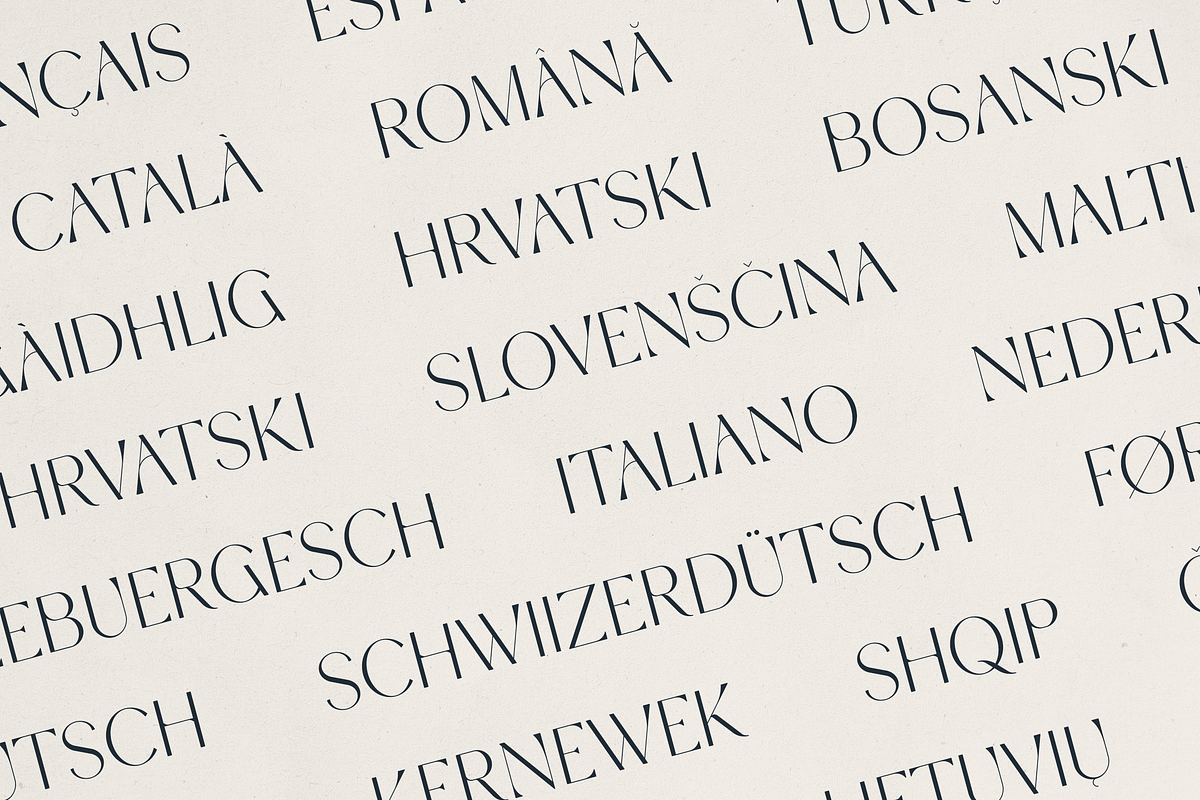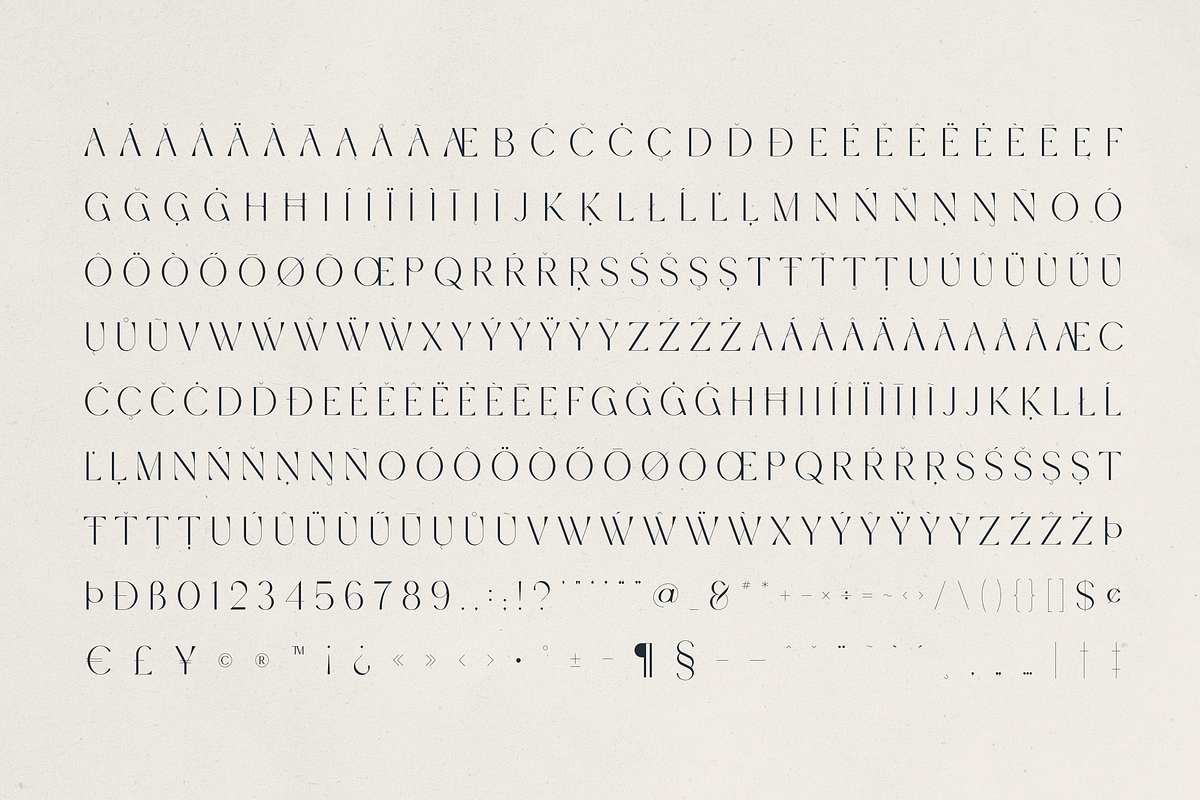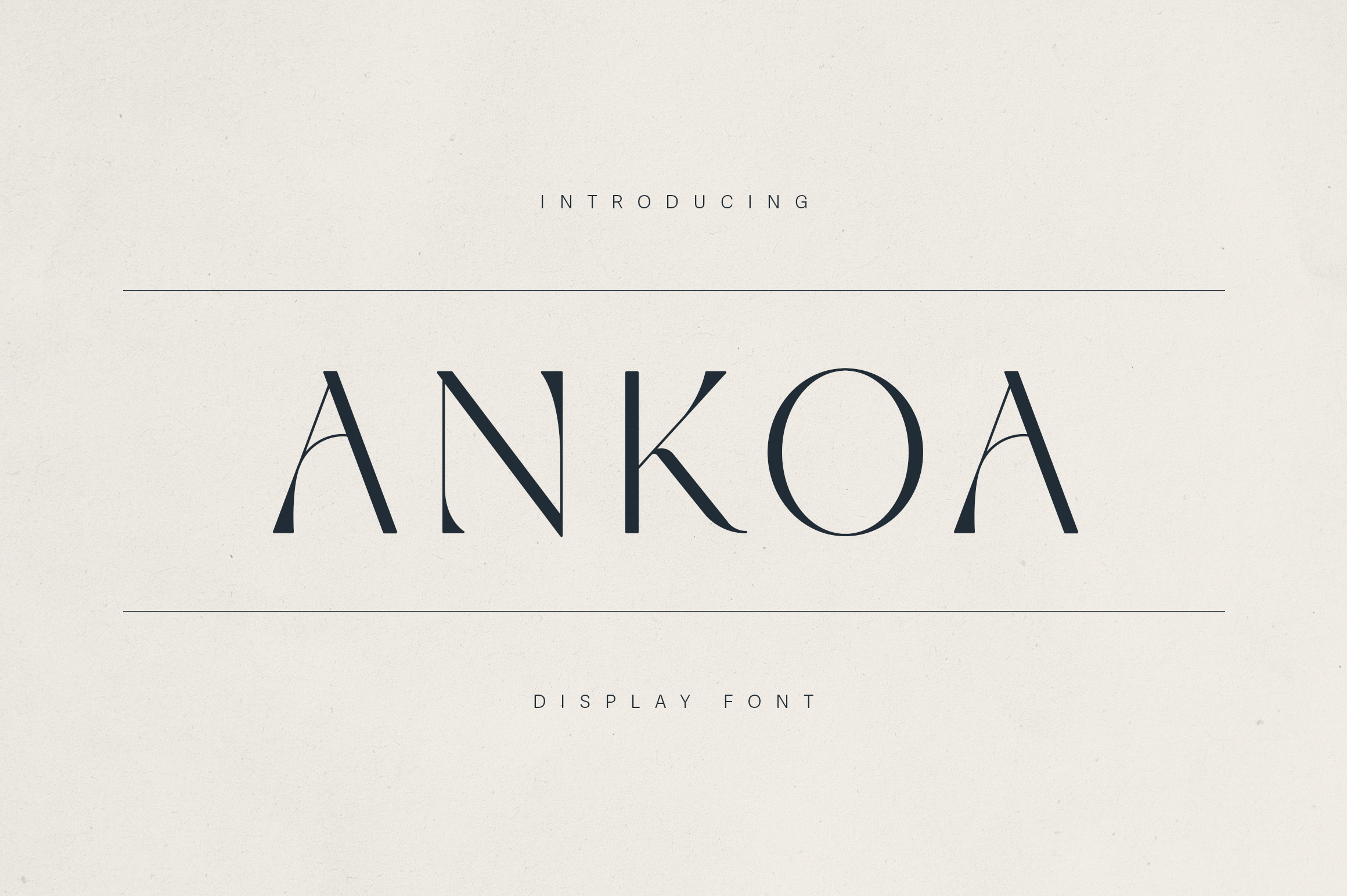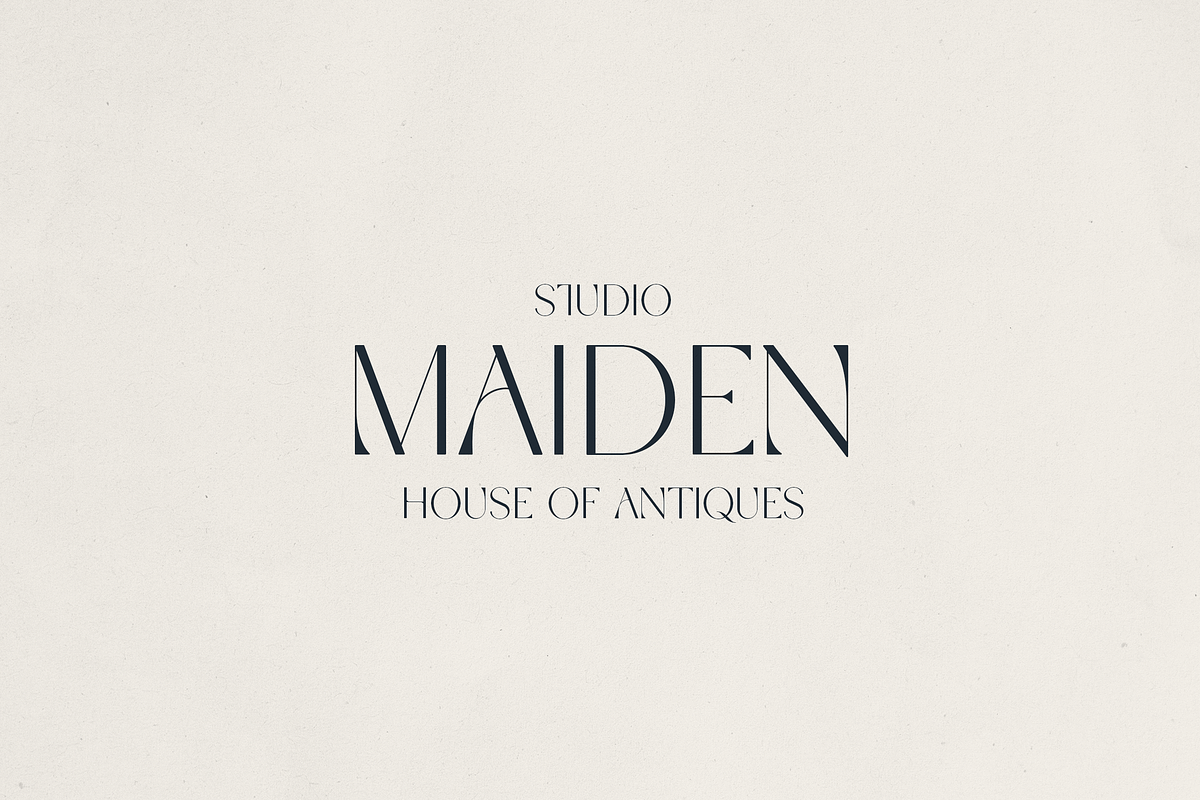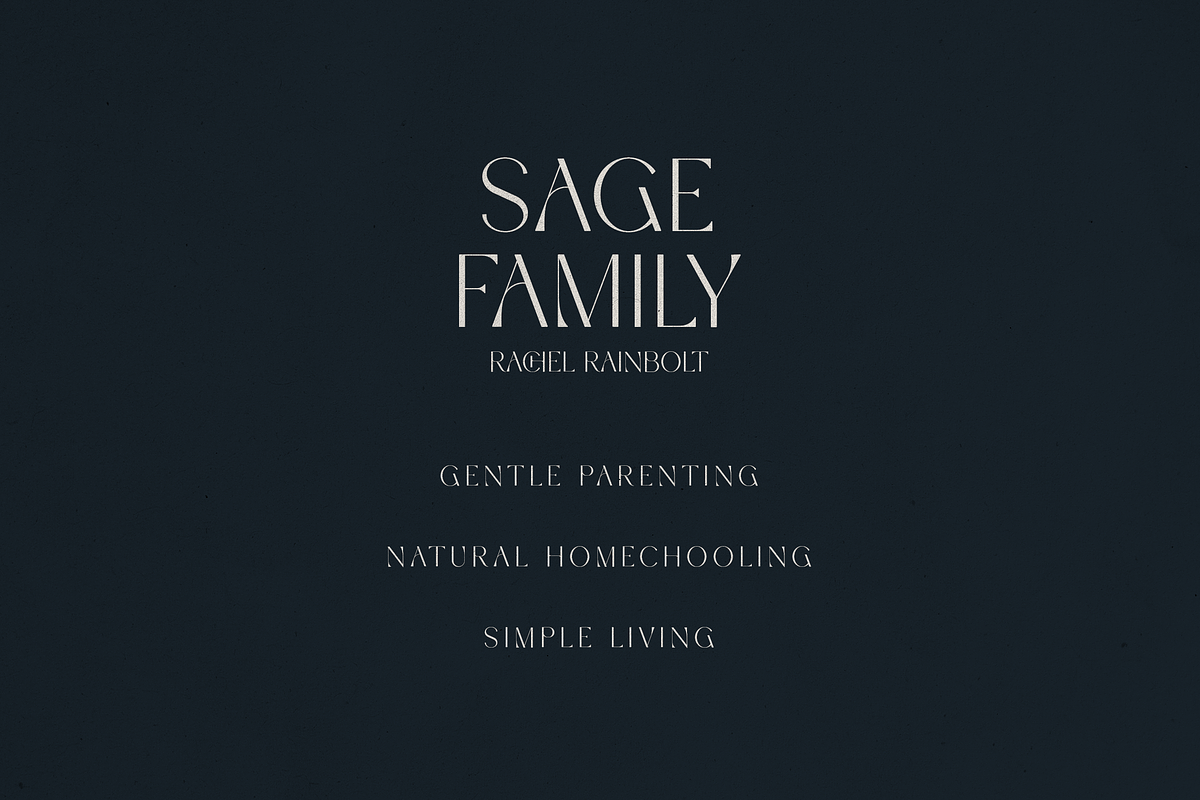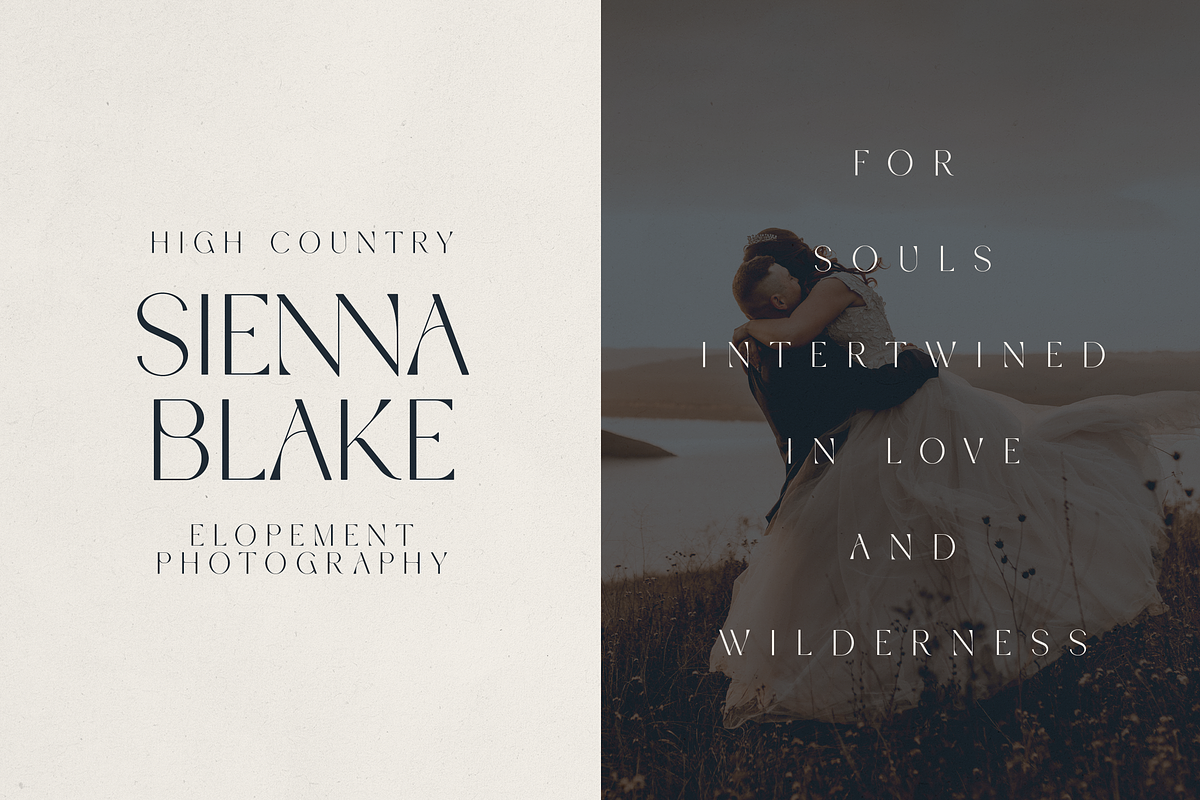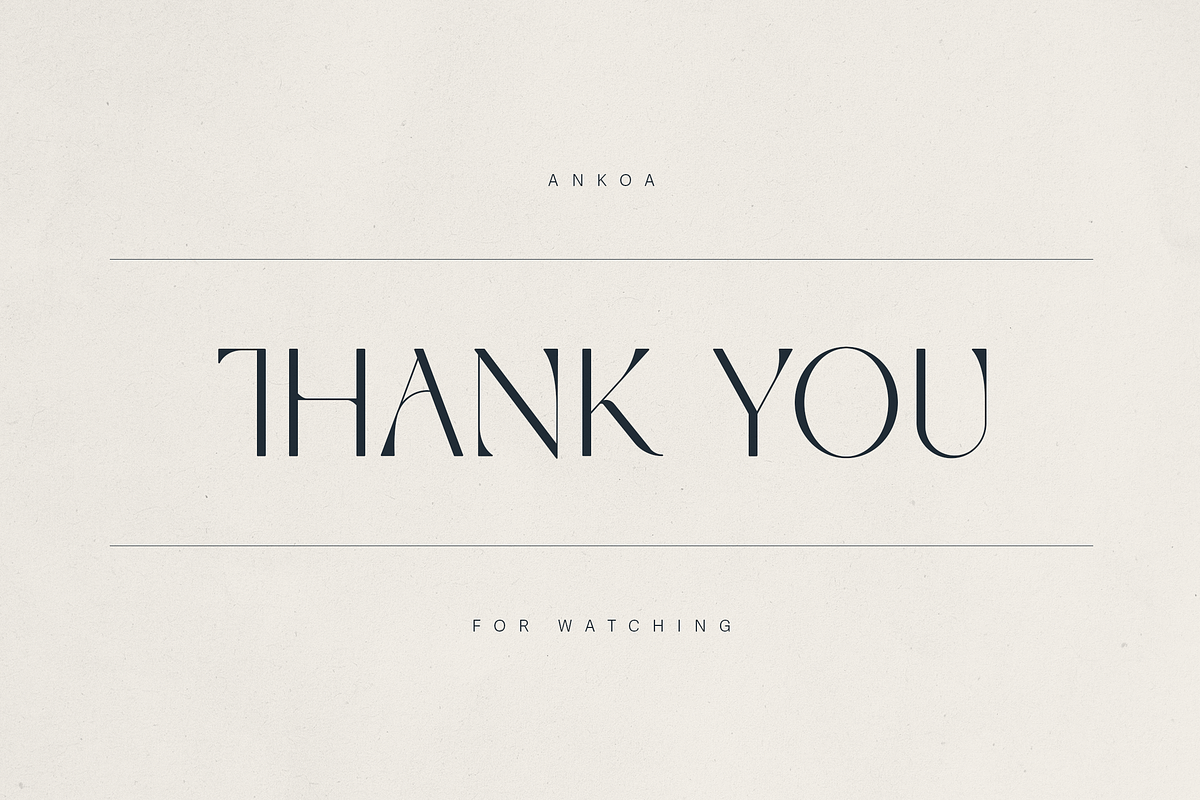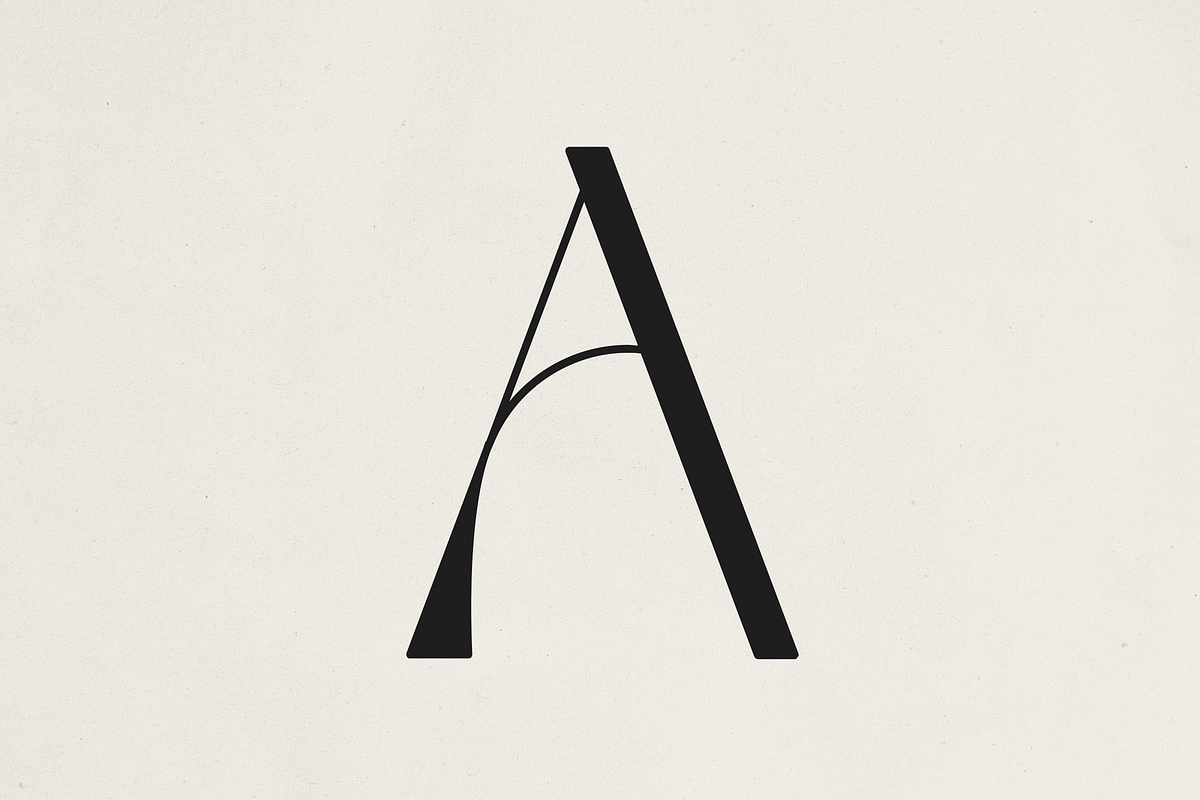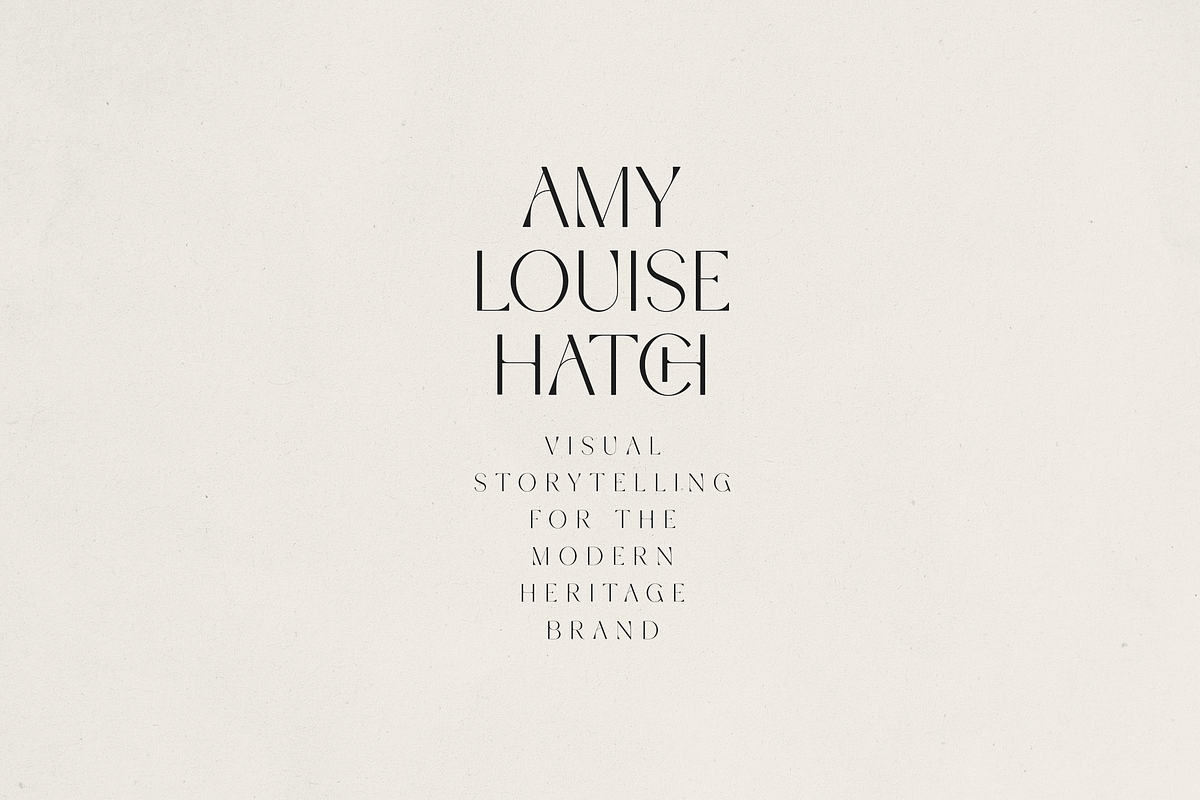
Ankoa – A Refined Display Font
Ankoa – A Refined Minimalist Display Serif
Ankoa is a contemporary display serif font that balances artistic flair with timeless sophistication. Defined by its elegant high-contrast strokes, unique curved terminals, and refined proportions, Ankoa captures the essence of modern luxury with a whisper of vintage romance.
Perfect for upscale branding, editorial layouts, and thoughtful packaging, Ankoa evokes a sense of intentionality and understated beauty. Each letterform is crafted to create visual intrigue, making it ideal for headlines, logos, wedding collateral, and lifestyle storytelling.
- Distinctive display serif with artistic letterforms
- Sharp contrasts and graceful, minimalist curves
- Uppercase, numerals, punctuation, and symbols
- Multilingual support with extensive Latin character coverage
- Ideal for wedding editorials, boutique branding, interiors, packaging & lifestyle content
Whether you're designing for a soulful photography brand, a poetic home goods label, or a heritage-inspired editorial, Ankoa delivers a look that feels both meaningful and memorable.